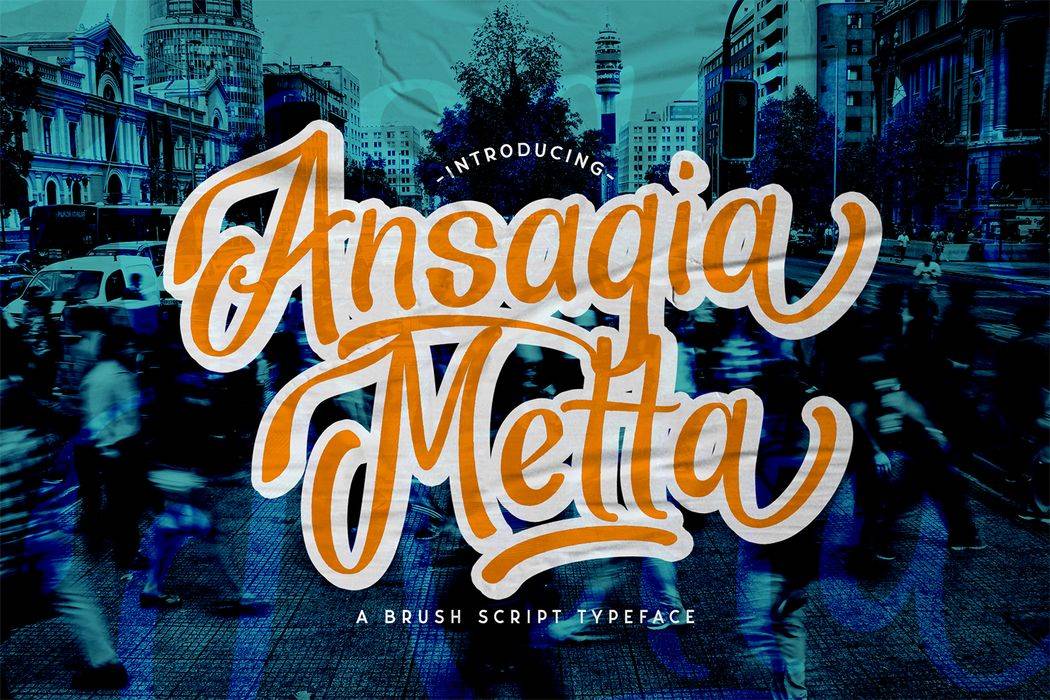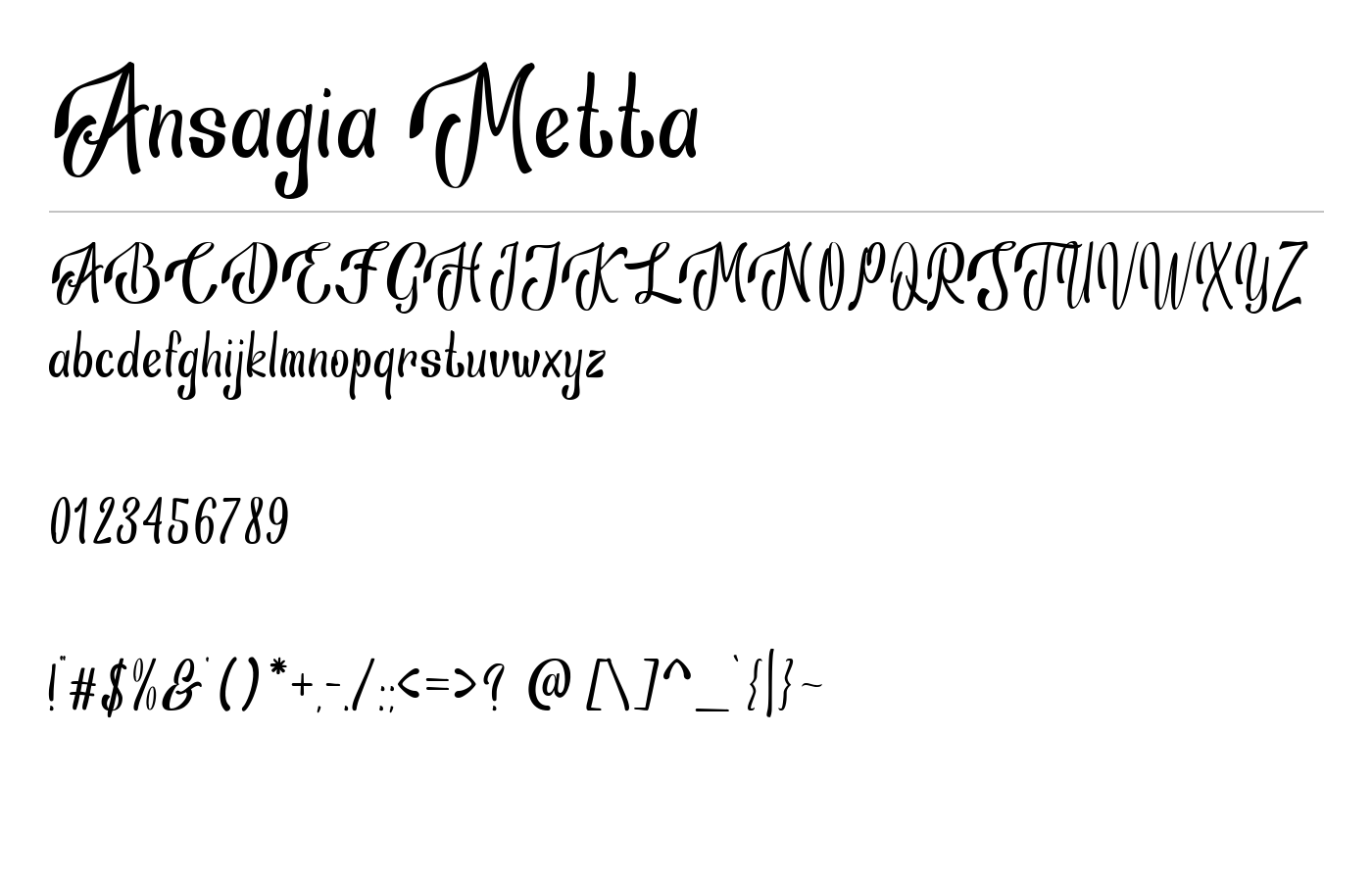
Ansagia Metta is a stylish script font with a casual yet elegant feel, characterized by its tall, narrow letterforms and rhythmic, flowing strokes. It features a moderate contrast between thick and thin lines and distinctive, slightly quirky letter shapes that create a friendly, artistic personality. This font works great for creative branding, invitations, and headlines where a unique, handcrafted touch is desired.
Ansagia Metta Font
About Ansagia Metta Font